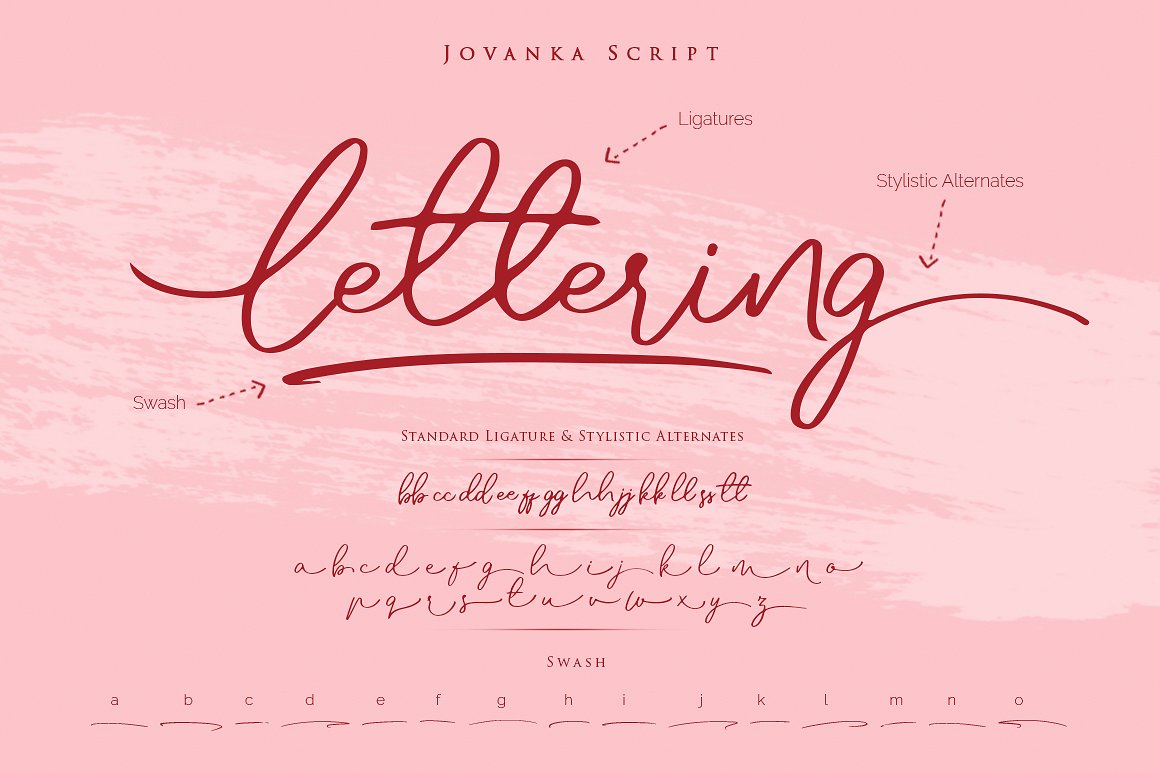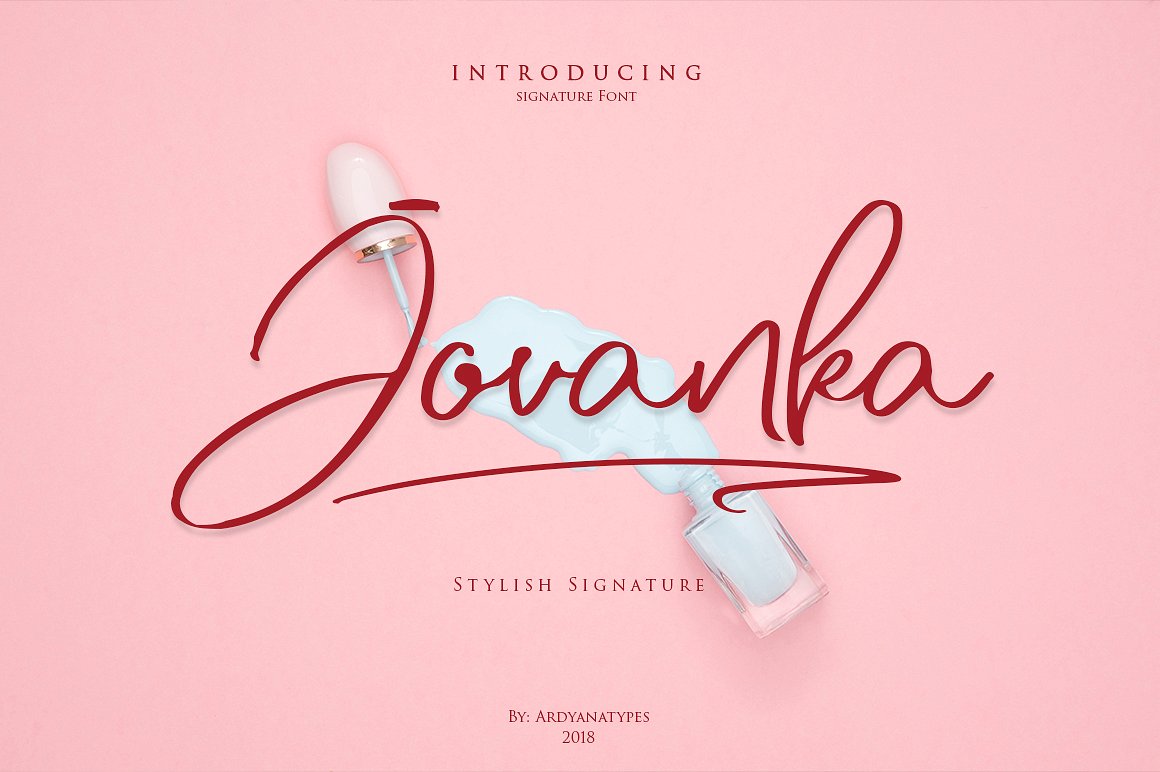
Jovanka Handwritten
Jovanka Handwritten Font
Jovanka is a modern font created to suit all design needs, carefully crafted to get the letter style in every word to be written, so it will be great for use in different projects: photography, watermark, quotes, blog header, poster, wedding, branding, logo, fashion, apparel, letter, invitation, stationery, etc